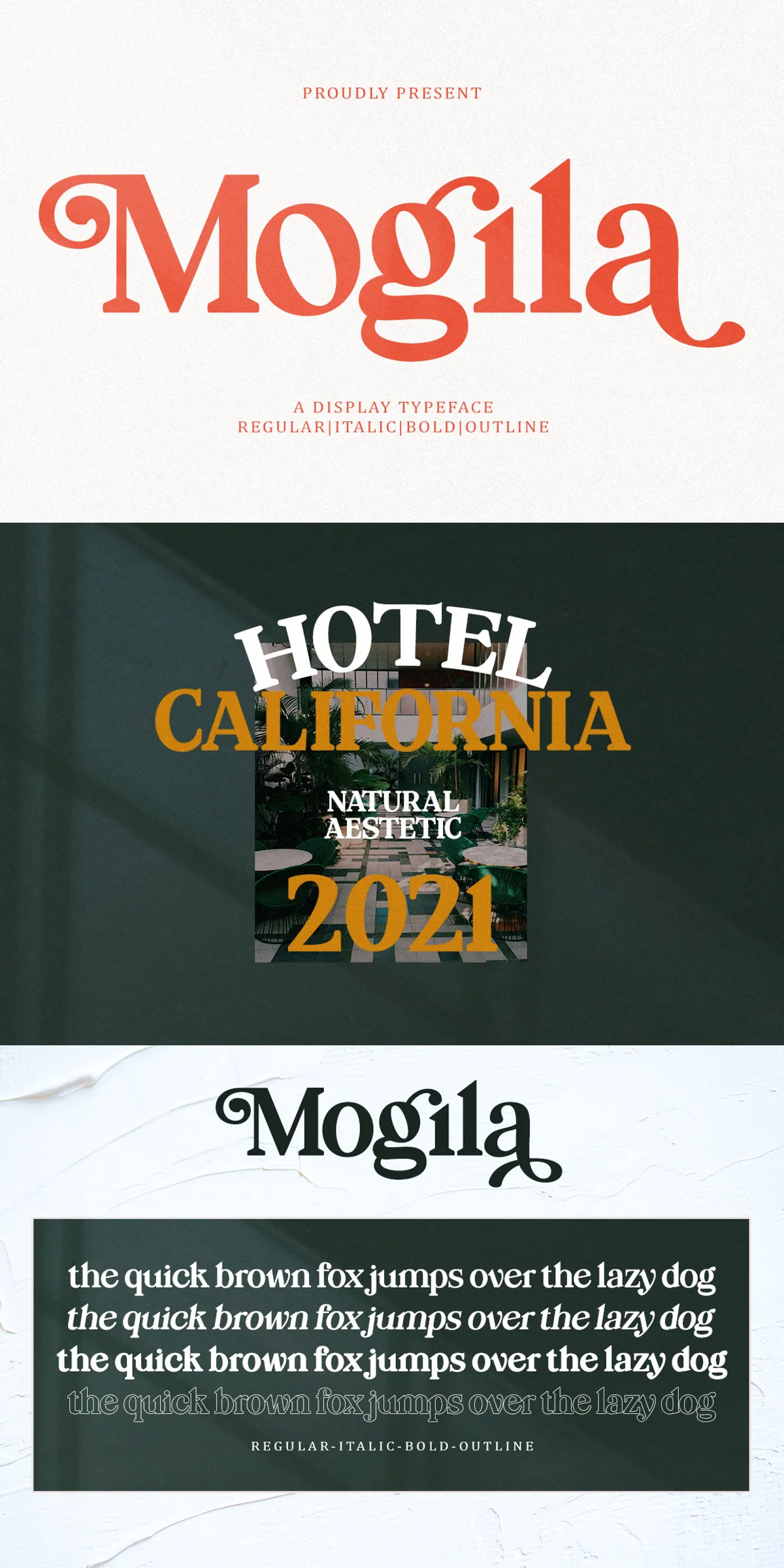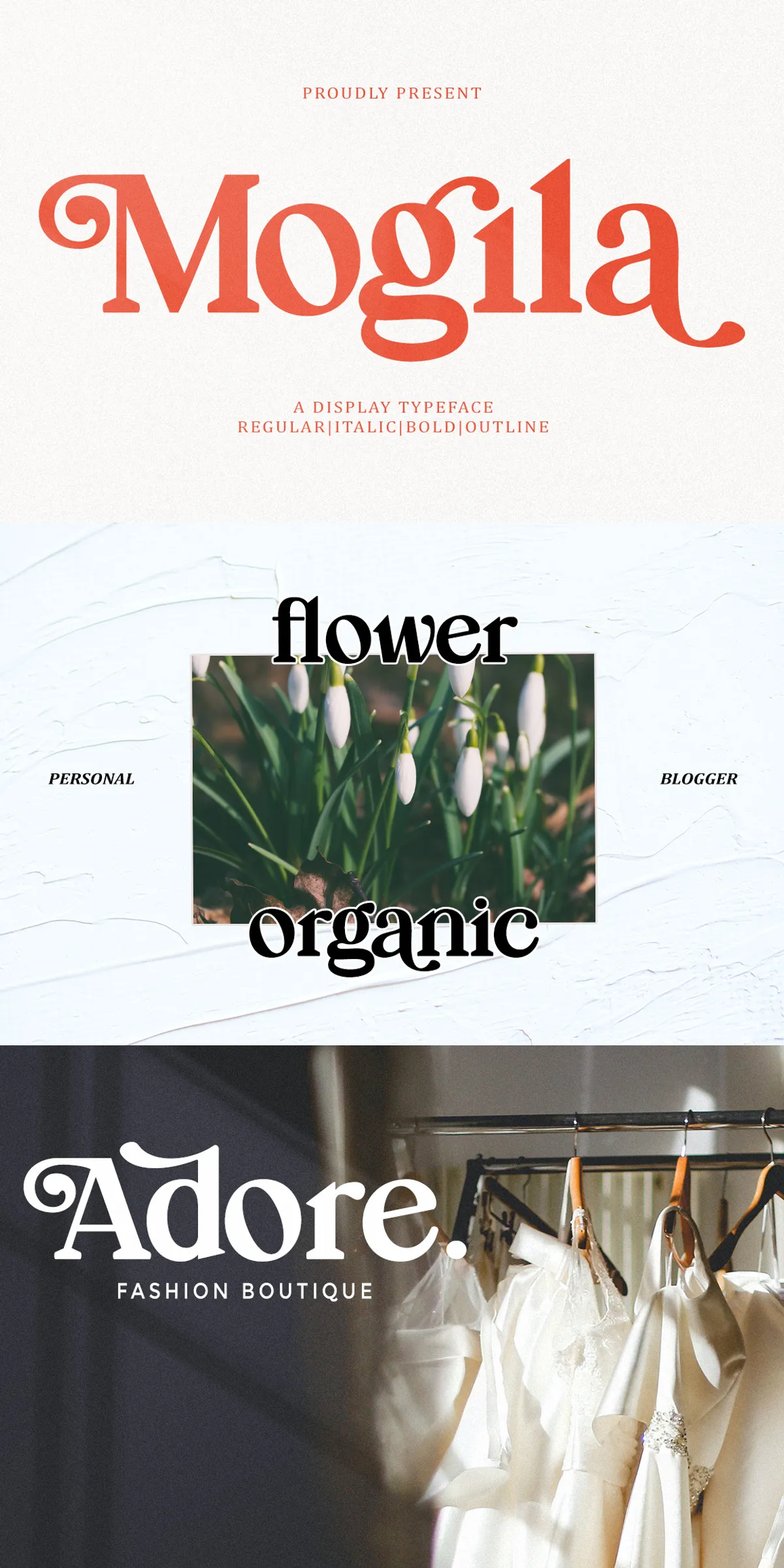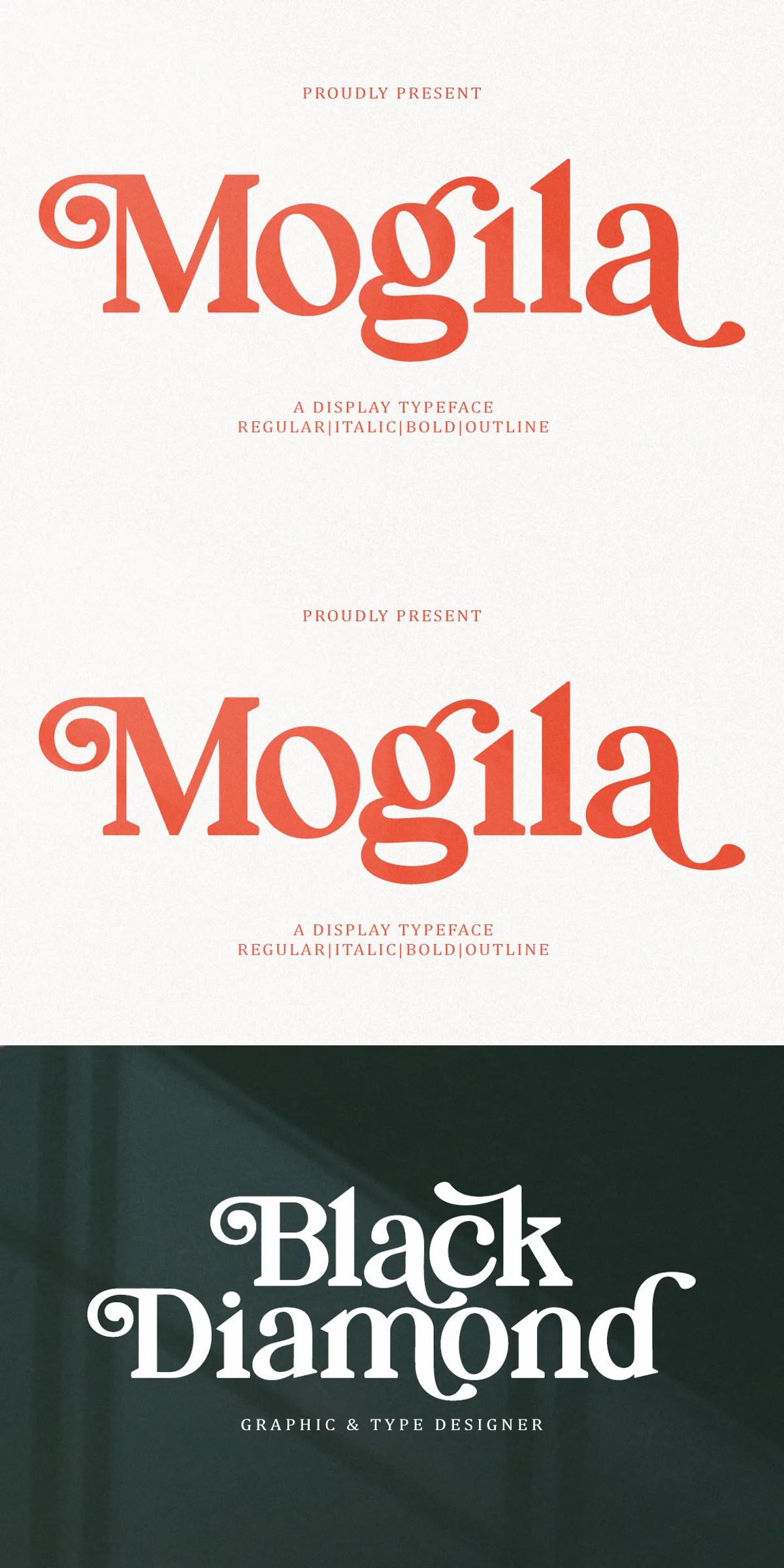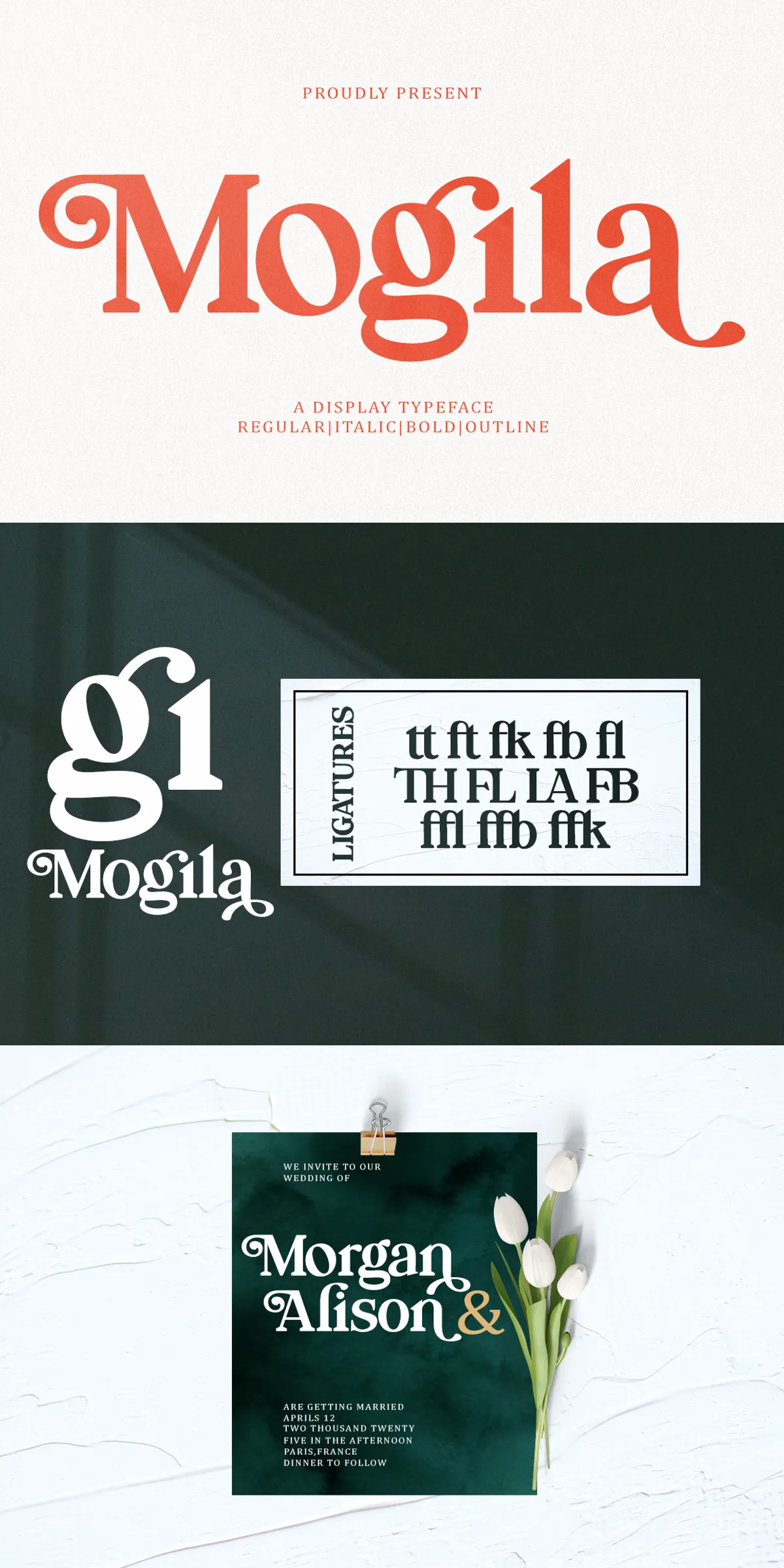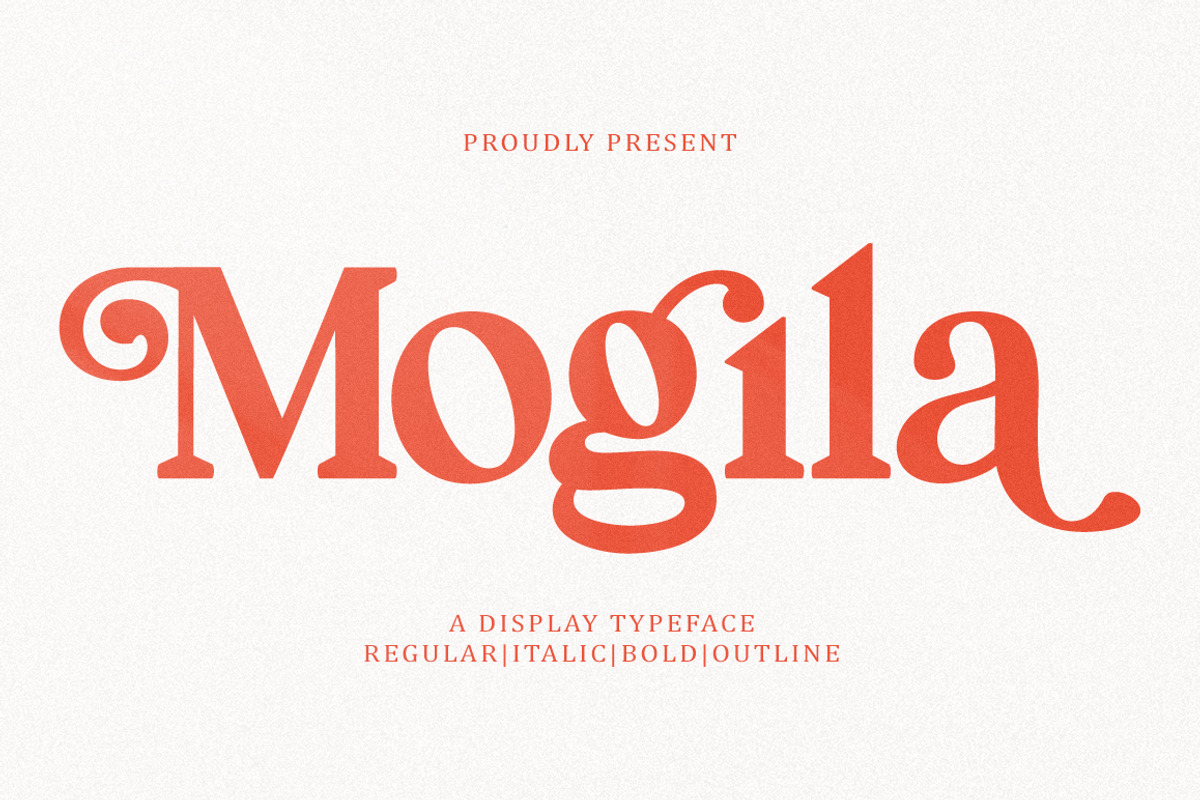
Mogila Display Font
Step into a world of expressive typography with Mogila — a striking display font that combines cheerful energy, elegant structure, and undeniable strength. Designed for creatives who demand visual impact without sacrificing refinement, Mogila transforms ordinary projects into unforgettable experiences. Whether you’re building a bold brand identity, crafting eye-catching posters, designing book covers, or creating vibrant print templates, Mogila brings personality, power, and precision to every pixel.
Designed for Impact: Where Style Meets Substance
Mogila doesn’t just sit on the page — it commands attention. Its bold, slightly stylized letterforms are built with intention: open counters for clarity, dynamic serifs for rhythm, and a unique rhythm in spacing that guides the eye through your design like a visual melody. Every character is crafted to perform under pressure — whether scaled up for a billboard or refined for a business card.
The font’s hybrid character blends modern minimalism with vintage warmth. Its clean geometry ensures timeless appeal, while subtle flourishes and organic stroke variation inject personality. This duality makes Mogila equally at home in a futuristic tech campaign as it is in a retro-inspired coffee shop branding project.
Four Distinct Styles, Infinite Creative Potential
Unlock a world of possibilities with four powerful variations:
• Regular: The foundation of your design — balanced, clear, and perfectly proportional for headlines and titles.
• Italic: Add elegance and movement with slanted forms that glide across the page, ideal for storytelling and editorial contexts.
• Bold: Turn up the volume. This weight delivers maximum visual impact for logos, product packaging, and poster art.
• Outline: Break free from the constraints of solid shapes. The outline version allows you to fill with color, texture, or patterns for truly unique design expressions.
These styles share the same core character set, so you can seamlessly mix and match across your project for a cohesive yet dynamic look.
Advanced Typography at Your Fingertips
Mogila isn’t just a pretty face — it’s a professional-grade typeface with serious technical muscle. Built on full OpenType support, it gives you the tools to elevate your designs:
• Multiple Alternates: Swap out standard letters with stylistic variants to create custom letter pairs and unique typographic compositions.
• Ligature Support: Enjoy smooth, professional-looking text flow with pre-designed ligatures that eliminate awkward spacing.
• Comprehensive Punctuation: From commas to em dashes and brackets to quotation marks — every symbol is crafted to match the font’s tone.
• Full Multilingual Support: Includes uppercase and lowercase letters, accented characters, diacritics, and international glyphs for global design use.
Perfect for Every Project That Needs to Stand Out
Mogila was built for real-world creativity. Use it in:
• Logos & Branding: Create memorable brand identities that feel bold, modern, and confident.
• Posters & Advertising: Make your message pop with attention-grabbing headlines and visual rhythm.
• Book Covers & Menus: Elevate your publication with a title font that tells a story before the reader even opens it.
• Website Headers & UI Elements: Add personality to your digital presence with striking, readable display text.
• T-Shirts, Labels, Business Cards: Turn everyday items into design statements with a font that carries weight.
• Print Templates & Design Kits: Build reusable, high-quality templates with a consistent, professional voice.
Seamless, Modern Integration
Mogila is engineered for maximum compatibility and ease of use:
• Optimized for High-Resolution Output — crisp, clean rendering at any size, from small icons to large-scale displays.
• Designed with Professional Designers in Mind — includes kerning, spacing, and ligature features for publication-ready results.
Bring Your Ideas to Life — With Confidence
Mogila isn’t just a font. It’s your creative partner. It’s for designers who refuse to settle for generic, who believe that every letter should carry purpose, style, and soul.
Whether you’re launching a new brand, launching a product, or simply pushing your creative boundaries — Mogila gives you the tools to stand out, be seen, and be remembered.